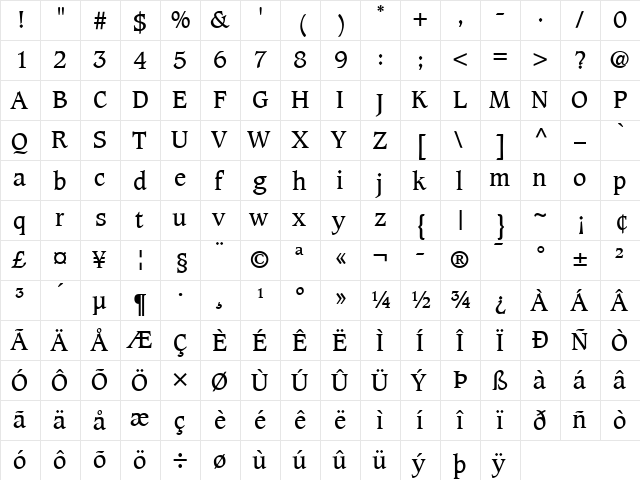
Caxton LT Book Regular
Design Context for Caxton LT Book Typeface
Caxton LT Book takes a measured approach to typography — its balanced proportions and neutral character make it a reliable workhorse for both digital and print work. Its slender proportions lend an understated elegance to any composition.